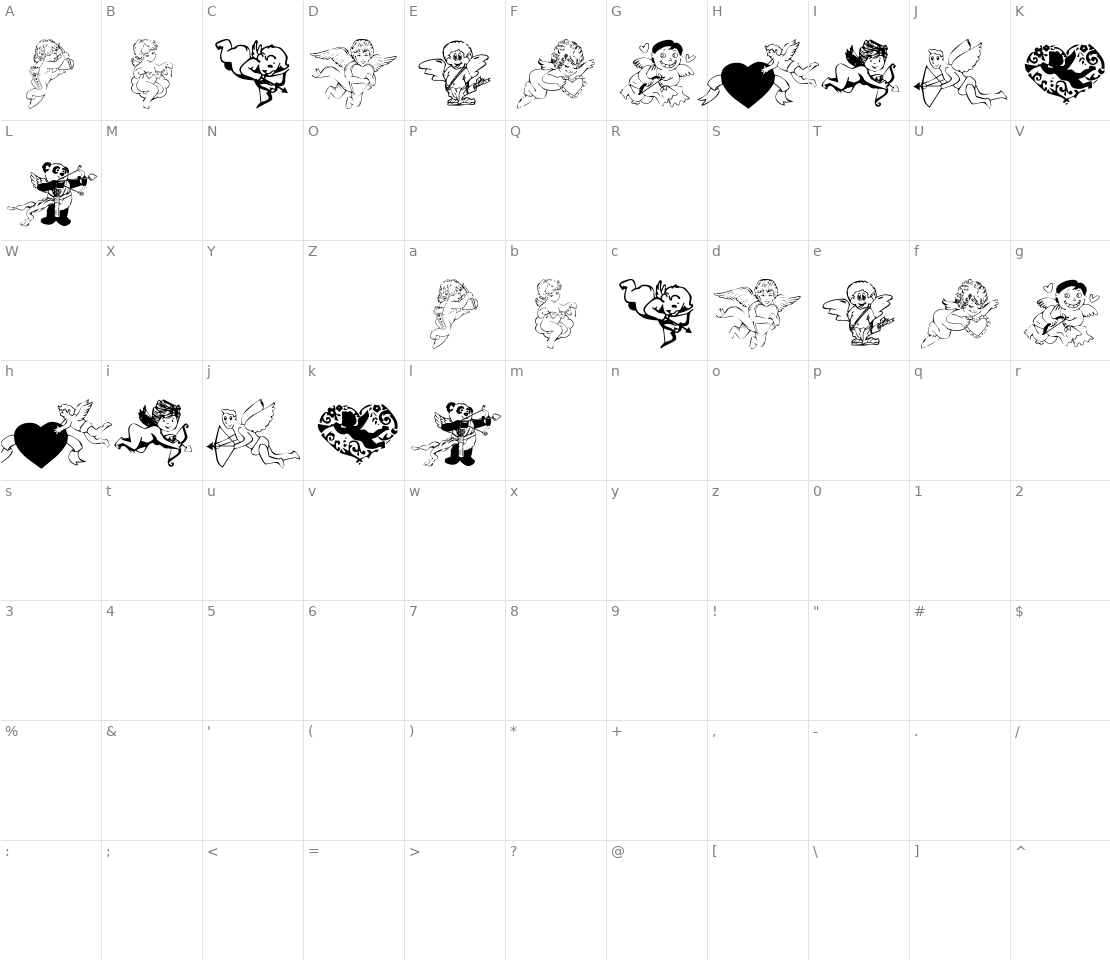
KR Cupids 2003
by Kat's Fun Fonts
KR Cupids 2003 is a dingbat font from Kat's Fun Fonts filled with cupids, hearts, and angel motifs designed for Valentine's Day and romantic-themed projects. Each character is a small decorative illustration rather than a letter, so it's purely ornamental. Useful for invitations, greeting cards, scrapbooking, and anywhere you need a quick spot illustration with a lovey-dovey feel.